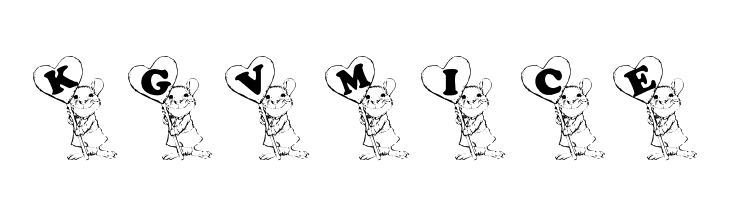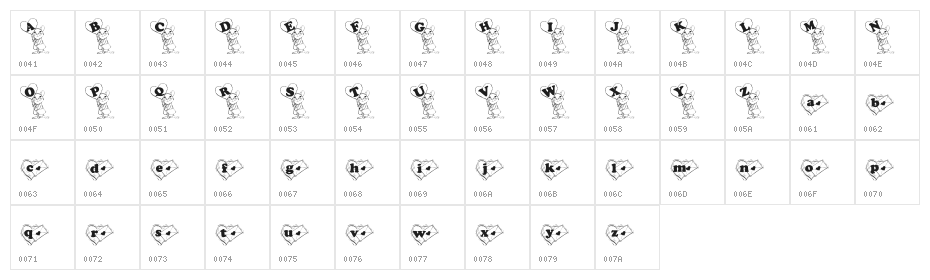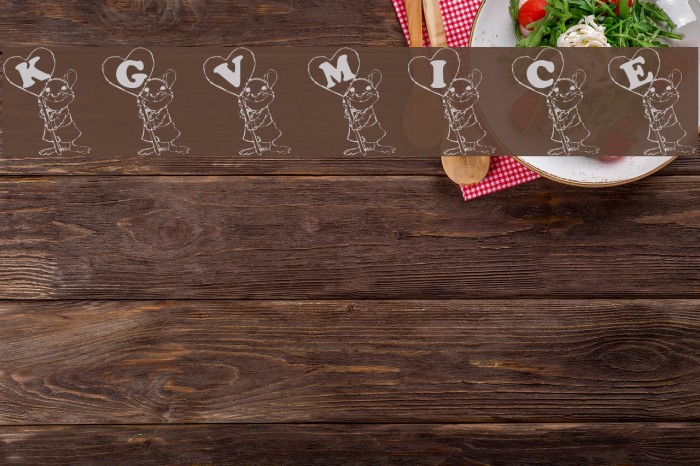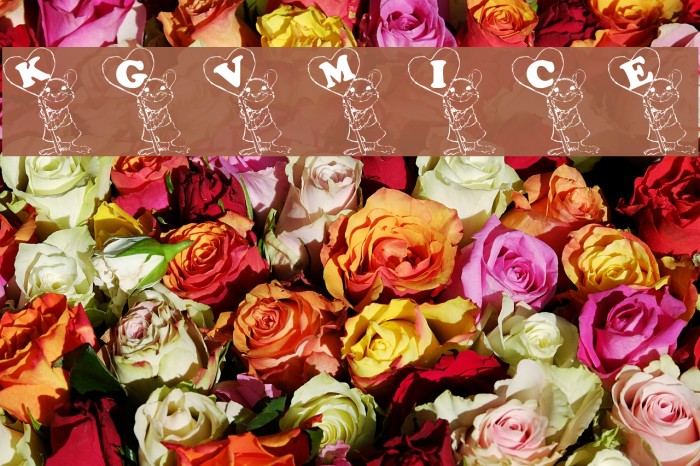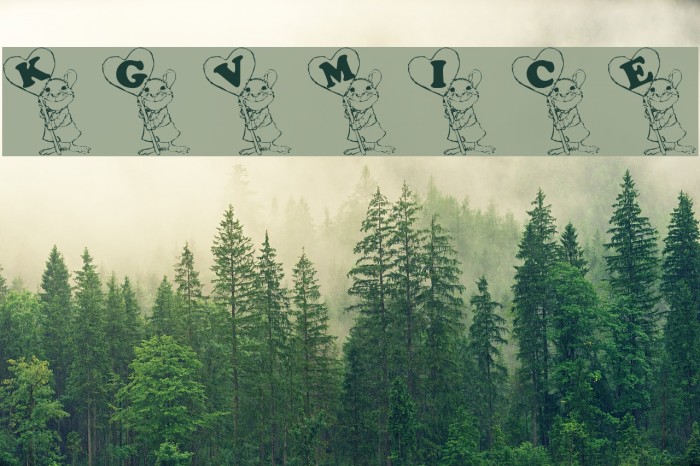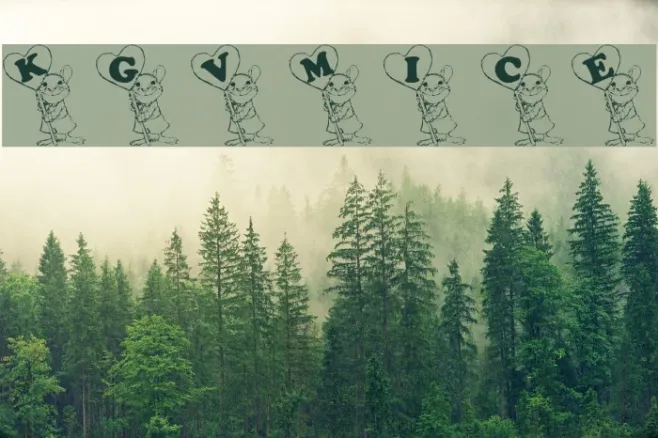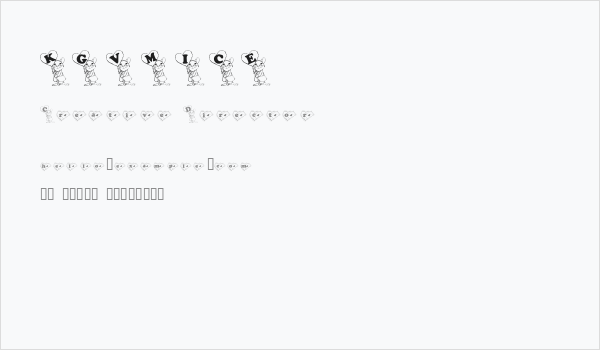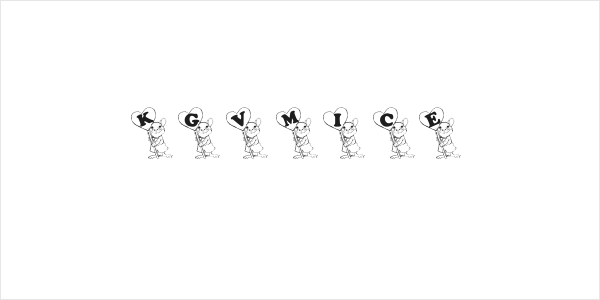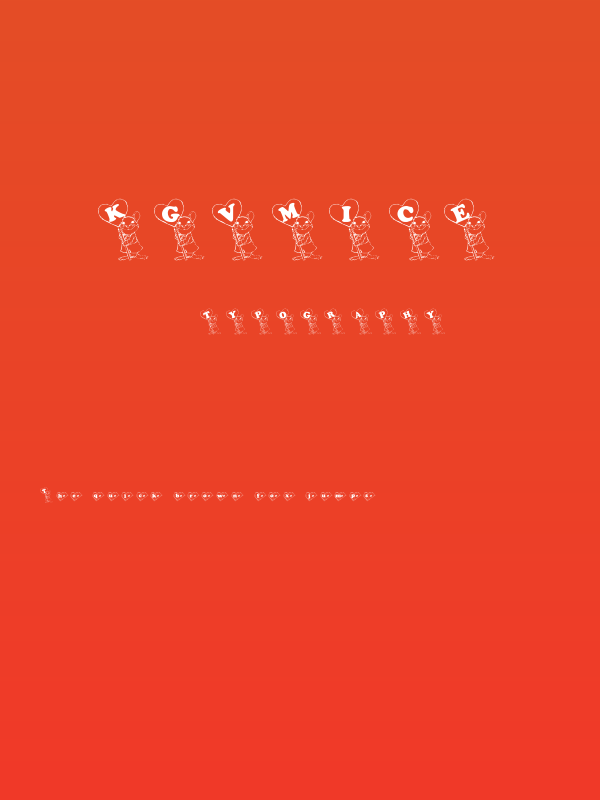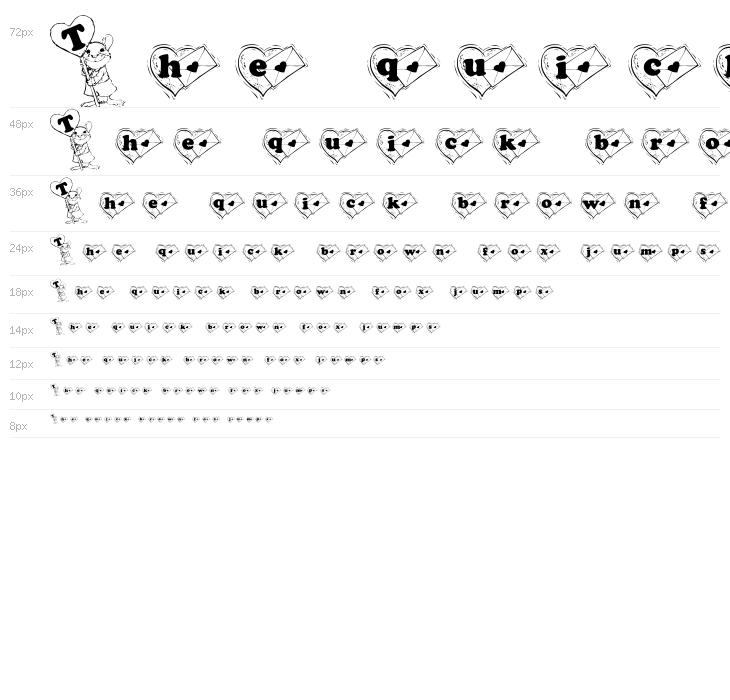
KGVMICE Font
KGVMICE Description
This whimsical and playful font features each letter encased within a heart shape, accompanied by a cartoon mouse character. The uppercase letters are depicted with the mouse holding the heart, adding a charming and animated touch. The lowercase letters maintain the heart motif, providing a consistent and cohesive design. The font lacks traditional numerals and special characters, instead using placeholder rectangles. This unique style is ideal for projects that require a fun and lighthearted aesthetic, such as children's books, greeting cards, or playful branding materials.
| Overall Style | Whimsical |
| Use Case | Decorative headlines, playful designs |
| Proposed Projects | Ideal for children's books, greeting cards, or playful branding. |